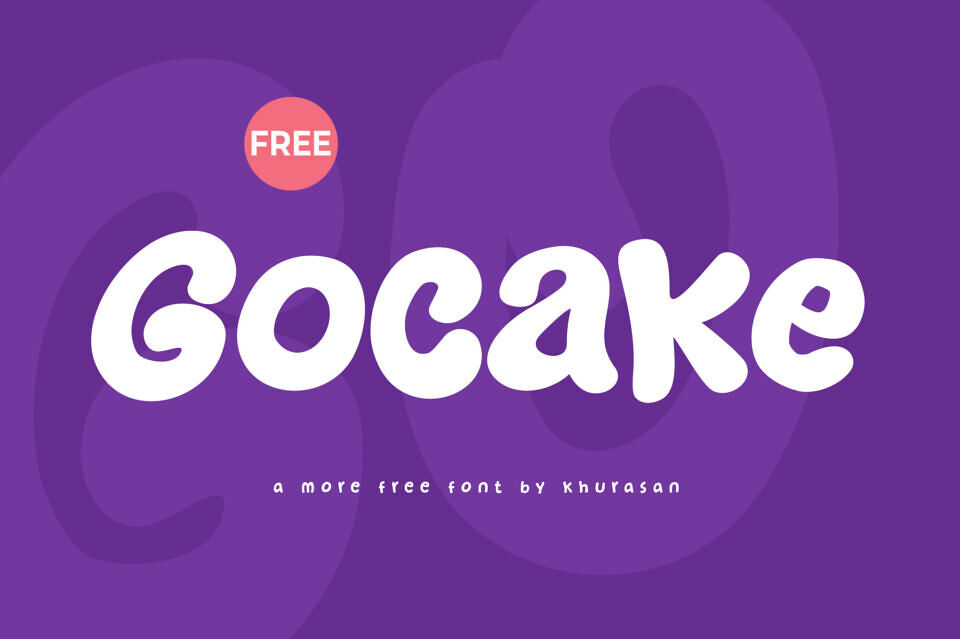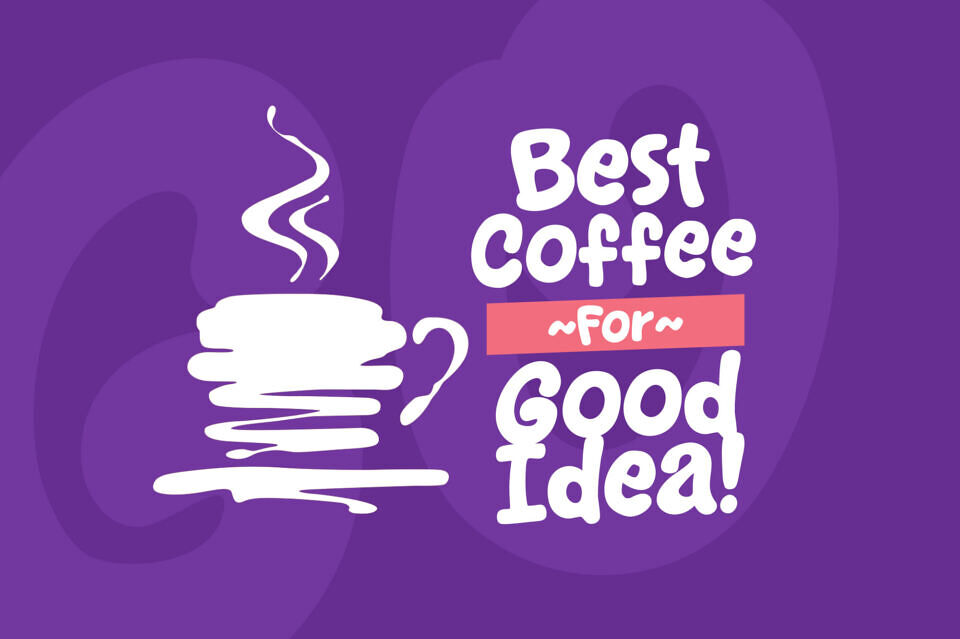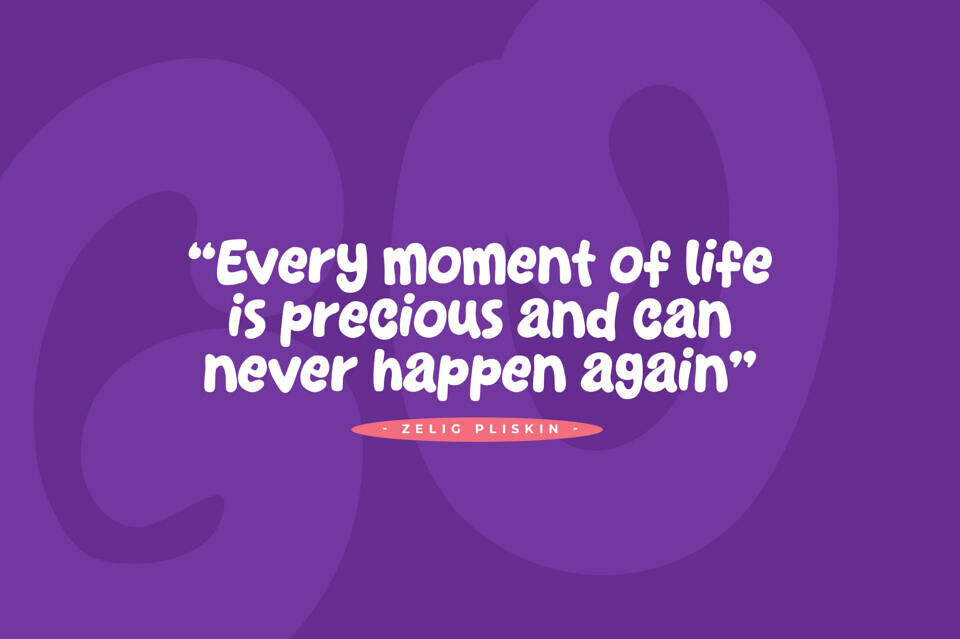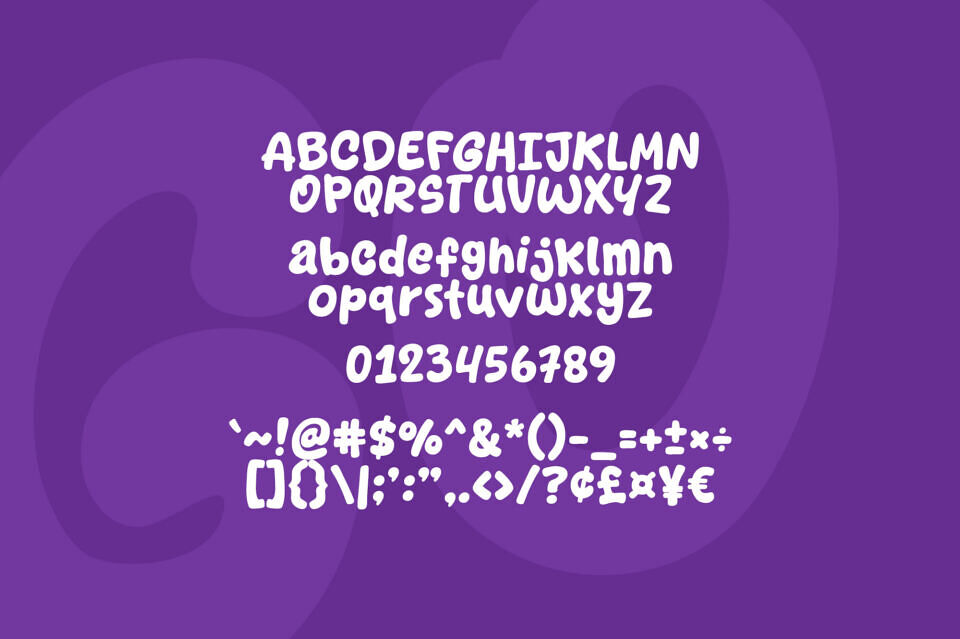
Gocake is a playful, bubble-style display font designed by Khurasan. Featuring thick, rounded letterforms and a charming hand-drawn feel, this bold typeface radiates a fun and friendly energy.
It includes full uppercase and lowercase alphabets, numbers, punctuation, and multi-currency symbols. It is a perfect choice for vibrant branding, children’s designs, food packaging, merchandise, and eye-catching headlines that need a touch of whimsical personality.